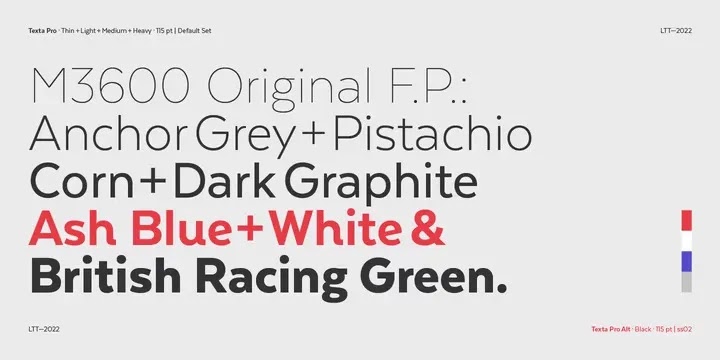
This font is a new sans serif family created by Latinotype with high internal contrast. Texta was born in 2014, a collaborative project of the study of humanist models from Edward Johnston to Adrian Frutiger. Texta Pro is a contemporary and rational sans, almost invisible, but not quite. It is a workhorse for any type of project.